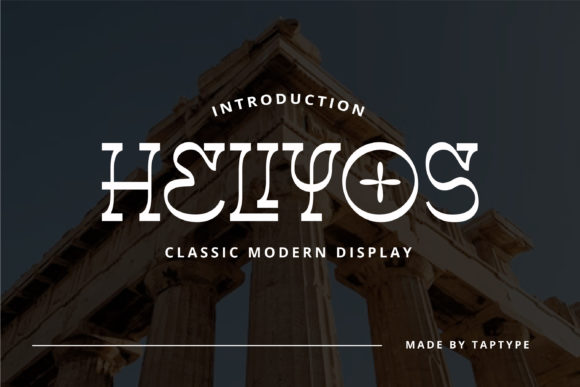
Journey into the realm of exquisite typography with Heliyos Font, an enchanting ensemble of high-fashion and vintage aesthetics. Designed by the masterminds at Taptype, this serif font stands as a testament to the enduring power of classic design fused with contemporary flair. Meticulously crafted with elegant curves, refined edges, and a touch of nostalgia, Heliyos Font promises to elevate your creative projects to breathtaking heights.
As you delve into the depths of its character set, you'll discover a treasure trove of distinctive glyphs and swashes, accessible with effortless ease thanks to PUA encoding. Unleash your imagination and let the versatility of Heliyos Font guide you through a multitude of design endeavors, from branding and logos to the creation of wedding invitations and greeting cards that exude timeless charm.
Picture the allure of a vintage neon sign, its captivating glow drawing the eyes of passersby. Heliyos Font encapsulates this captivating essence, allowing you to infuse your designs with a touch of retro charm. Its serifs, reminiscent of meticulously hand-painted letters, evoke a sense of authenticity and heritage, while its clean lines and contemporary appeal ensure it remains a timeless choice.
With Heliyos Font, embark on a creative odyssey where the boundaries of expression are limitless. Let your designs radiate with sophistication and elegance, leaving an indelible mark on the hearts and minds of your audience. Embrace the allure of timeless beauty and modern innovation, and witness the transformative power of Heliyos Font.